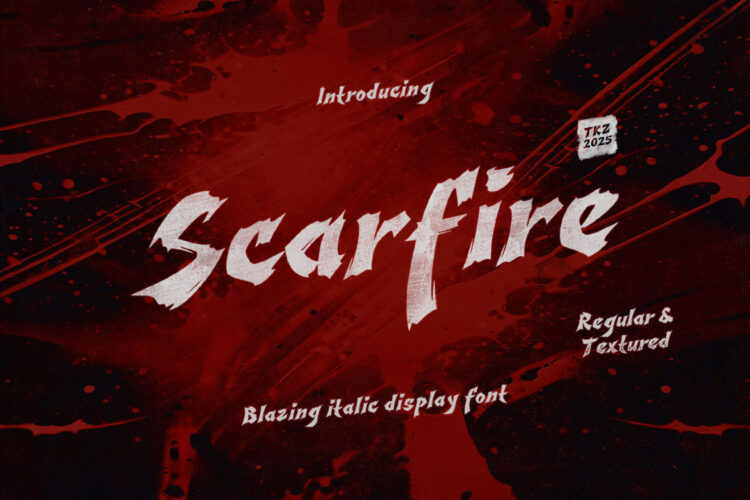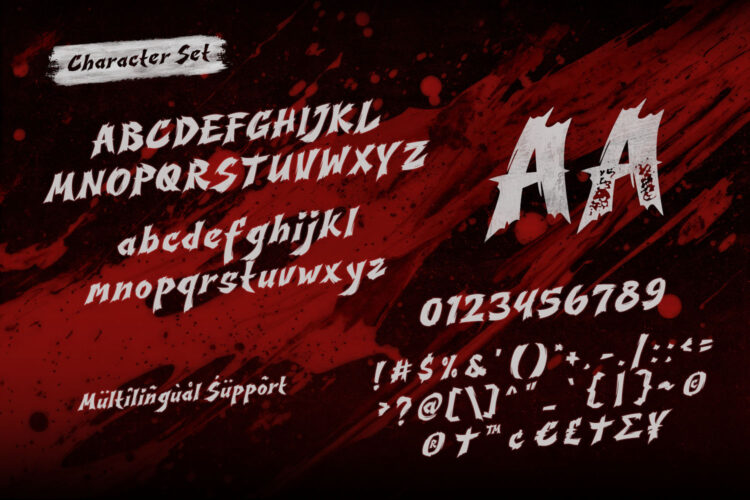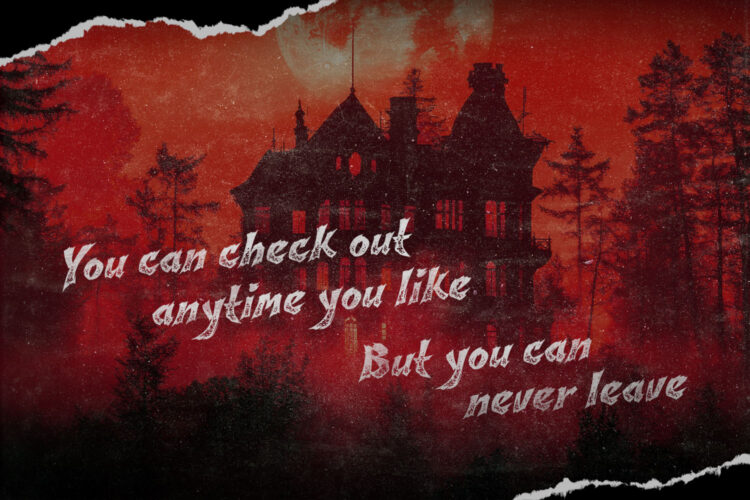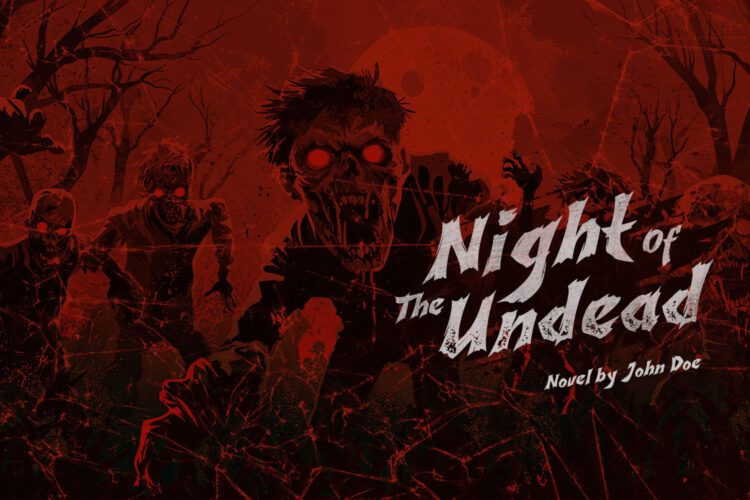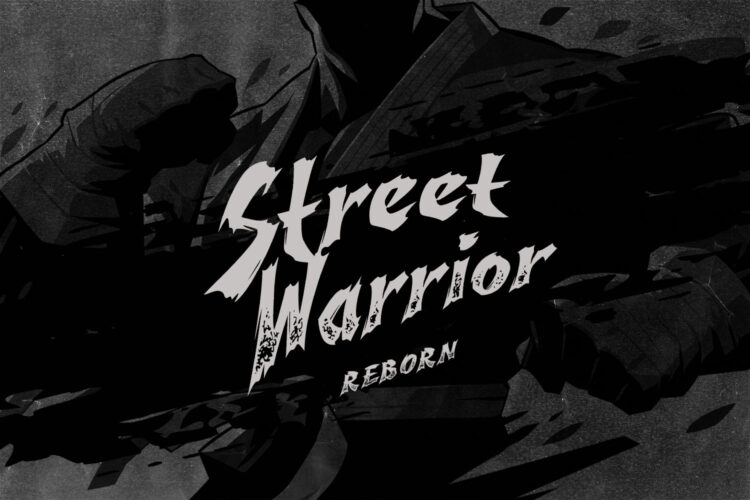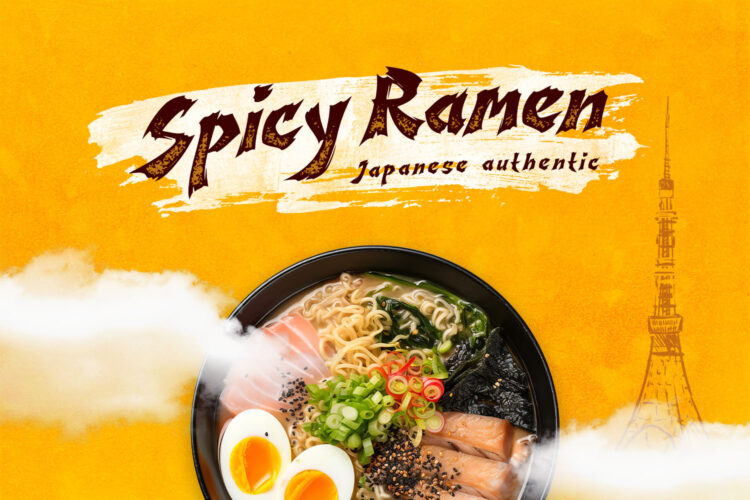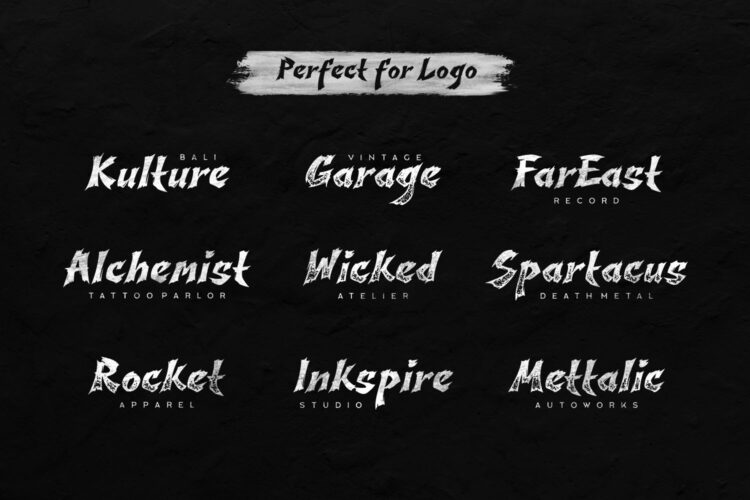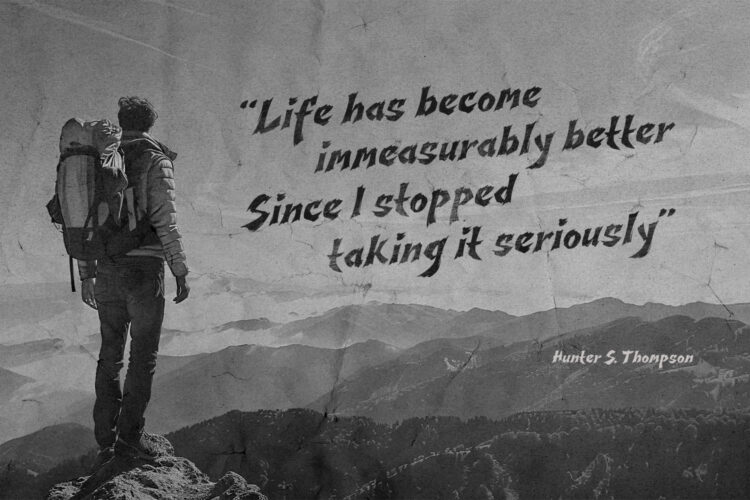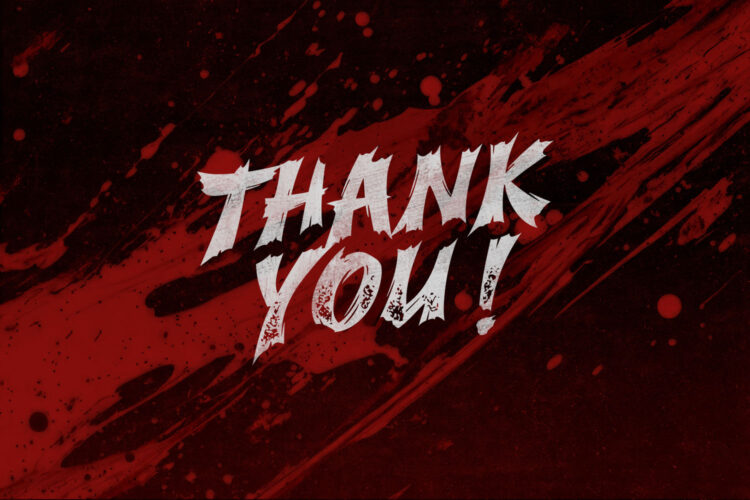
Scarfire is a bold display font shaped by the look of fiercing mystic vibes and the heat of roaring flames. Its slanted, fast motion brush strokes give it a strong, dramatic feel—great for horror posters, edgy logos, and eye-catching book covers. Available in both clean and rough textured versions, it offers flexibility for creating bold visuals that connect across genres and languages.